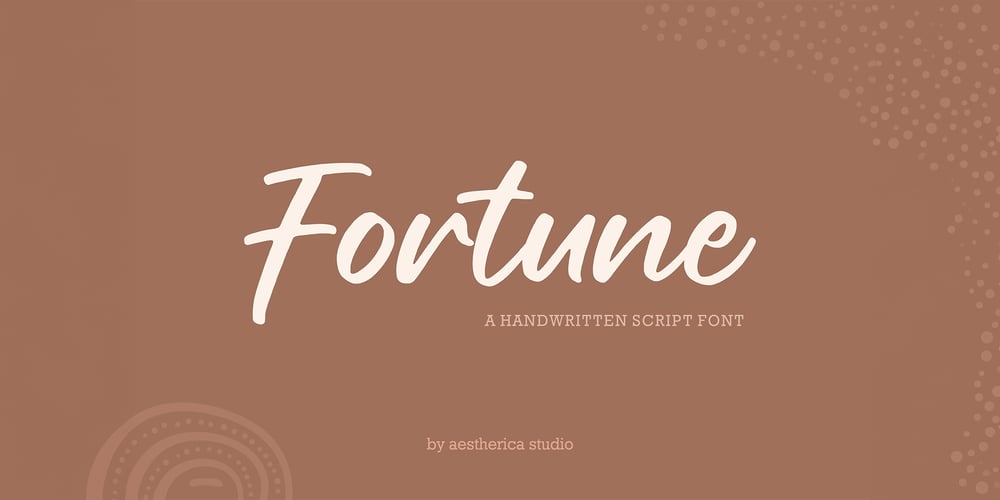
Fortune Font Family was designed by Muhammad Fathurrohman and published by Aestherica Studio. Fortune contains 1 styles and family package options. Fortune is a cute and simple handwritten font. This font will look great on any design idea. It will add a cute and romantic touch to any of your projects, This font is also specially made for those who need a beautiful and refreshing look for their designs!